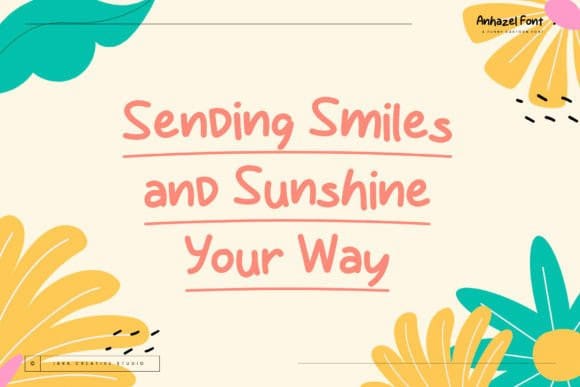
Anhazel Playful Font
Anhazel Playful Font a whimsical and playful cartoon font, brings an infectious sense of humor to any project it graces. With its exaggerated strokes and quirky characters, each letter in Anhazel embodies a delightful charm that is sure to bring a smile to the faces of viewers. The playful curves and exaggerated features of this font lend themselves perfectly to comedic designs, children’s books, greeting cards, and any project that calls for a touch of lighthearted fun.